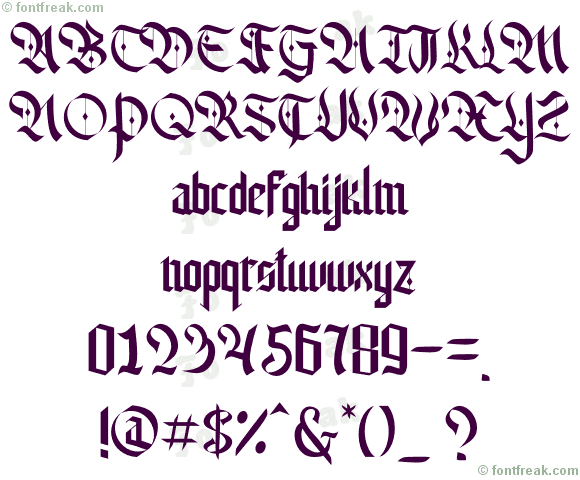
Alter Bridge
The Alter Bridge font by MaknaStudio is a striking display typeface that captures attention with its bold, gothic flair. This freeware font features intricate letterforms characterized by sharp angles and decorative elements that give it a unique, artistic quality. The stroke weight is substantial, creating a sense of depth and presence, while the contrast between thick and thin lines adds visual interest. The spacing between letters is thoughtfully designed, ensuring readability without sacrificing style.
Alter Bridge is perfect for a variety of creative applications. Its dramatic aesthetic makes it an ideal choice for band logos, album covers, and concert posters, where it can evoke a sense of energy and excitement. Additionally, it works well for themed events such as Halloween parties or medieval-themed gatherings, where its gothic touch can enhance the overall atmosphere. Small business owners in the arts or entertainment sectors may find this font particularly appealing for branding purposes, as it communicates a strong identity. Content creators, including bloggers and social media marketers, can leverage this font for eye-catching visuals that stand out in a crowded digital landscape.
Targeting graphic designers looking for unique fonts, Alter Bridge provides a distinctive option that sets projects apart. Its character and style make it suitable for both digital and print media, ensuring versatility across various platforms.
What makes the Alter Bridge font truly stand out is its ability to combine boldness with elegance. This font not only commands attention but also conveys a sense of creativity and individuality. Whether you're designing a flyer or crafting a brand identity, the Alter Bridge font free download is a valuable resource that promises to elevate your design projects to new heights.